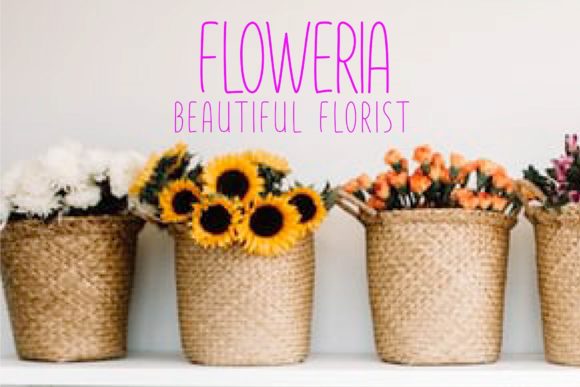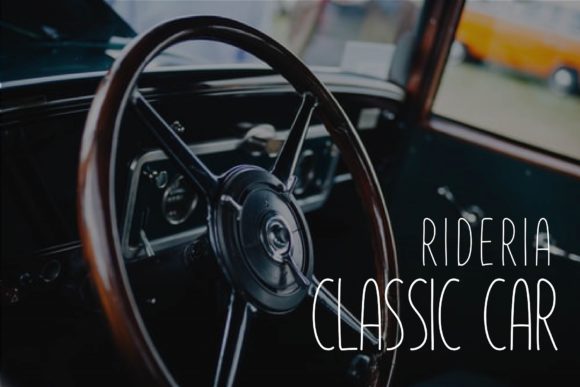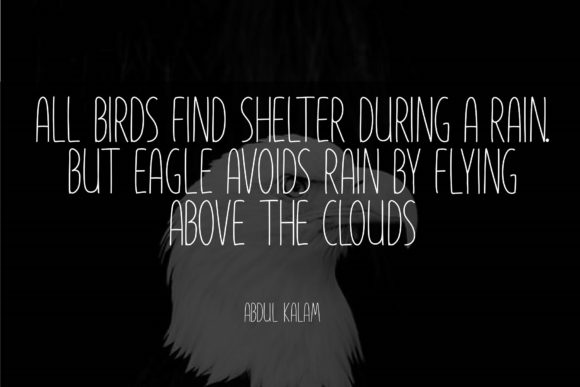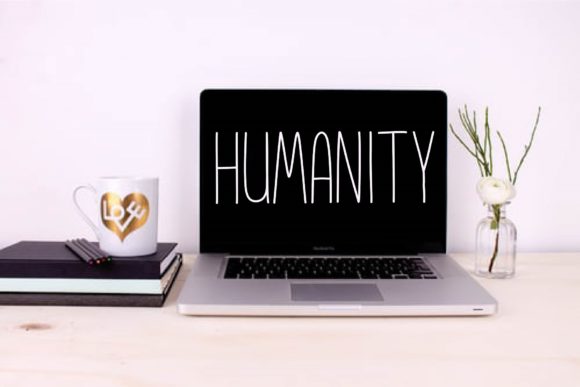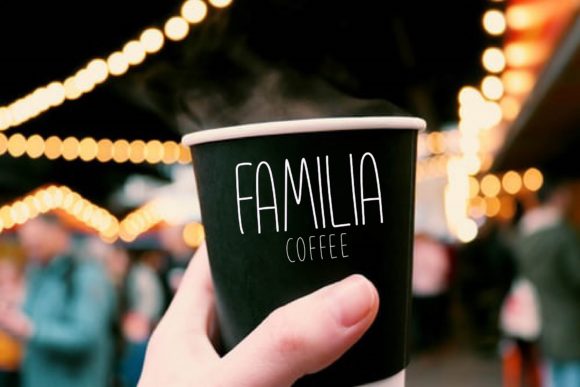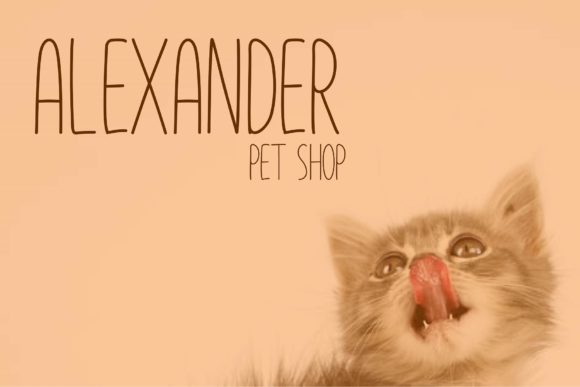
Introducing Aesthetis: Elevate Your Designs with a Stunning Sans Serif Monoline Font
In the world of design, fonts play a crucial role in conveying messages, evoking emotions, and creating a lasting impression. For designers, crafters, and businesses looking to make their mark, having the right typography is essential. This is where Aesthetis comes into play – a beautiful sans serif monoline font designed to transform your design projects into something truly remarkable.
What Makes Aesthetis Stand Out?
Aesthetis is not just another font; it’s a game-changer for anyone looking to add a touch of elegance and modernity to their designs. Its clean lines, simple yet sophisticated style, and versatility make it an ideal choice for a wide range of applications. Whether you’re working on branding, product packaging, invitations, quotes, t-shirts, labels, posters, or any logo you want to develop, Aesthetis is the perfect companion.
Endless Design Possibilities with Aesthetis
The true power of Aesthetis lies in its versatility. This font is not limited to a specific style or industry; it can be used across various platforms and design projects. Here are some of the many ways you can use Aesthetis:
• Branding: Create a strong and modern brand identity with Aesthetis. Its clean and elegant look makes it perfect for logos, business cards, and corporate materials.
• Product Packaging: Stand out on the shelves with eye-catching packaging designs. Aesthetis can help you create labels and packaging that are both stylish and informative.
• Invitations: Make your invitations memorable with Aesthetis. Whether it’s a wedding invitation, a birthday party invite, or a corporate event, this font adds a touch of sophistication.
• Quotes and Typography Art: Create stunning typography art with Aesthetis. Its monoline style makes quotes and phrases look elegant and modern.
• T-Shirts and Merchandise: Design unique and stylish t-shirts, hoodies, and other merchandise. Aesthetis looks great on apparel and can help you create trendy designs.
• Labels and Posters: From product labels to event posters, Aesthetis can elevate your design, making it more attractive and engaging.
Why Choose Aesthetis?
With so many fonts available, why should you choose Aesthetis? Here are a few compelling reasons:
• Versatility: Aesthetis is incredibly versatile, making it suitable for a wide range of design projects.
• Elegance: Its sans serif monoline style adds a touch of elegance and modernity to any design.
• Readability: Aesthetis is not only beautiful but also highly readable, making it perfect for both headings and body text.
• Customization: The font can be easily customized to fit your brand’s style, from adjusting the size to playing with colors.
How to Get the Most Out of Aesthetis
To truly leverage the power of Aesthetis, consider the following tips:
• Experiment with Colors: While Aesthetis looks great in black and white, don’t be afraid to experiment with colors. This can help you match the font to your brand’s palette or the mood of your design.
• Play with Sizes: The font’s versatility means it can be used for both large headings and smaller body text. Experiment with different sizes to create visual hierarchy in your designs.
• Combine with Other Fonts: For added creativity, try pairing Aesthetis with other fonts. Its clean style makes it a great companion for a wide range of typography.
Font Name Aesthetis Font
Aesthetis is more than just a font – it’s a design solution that can elevate your projects to new heights. Its elegance, versatility, and modern style make it an indispensable tool for designers and crafters looking to make a statement. Whether you’re creating branding materials, product packaging, or artistic typography, Aesthetis is the perfect choice. So why wait? Discover the possibilities with Aesthetis and take your designs to the next level.